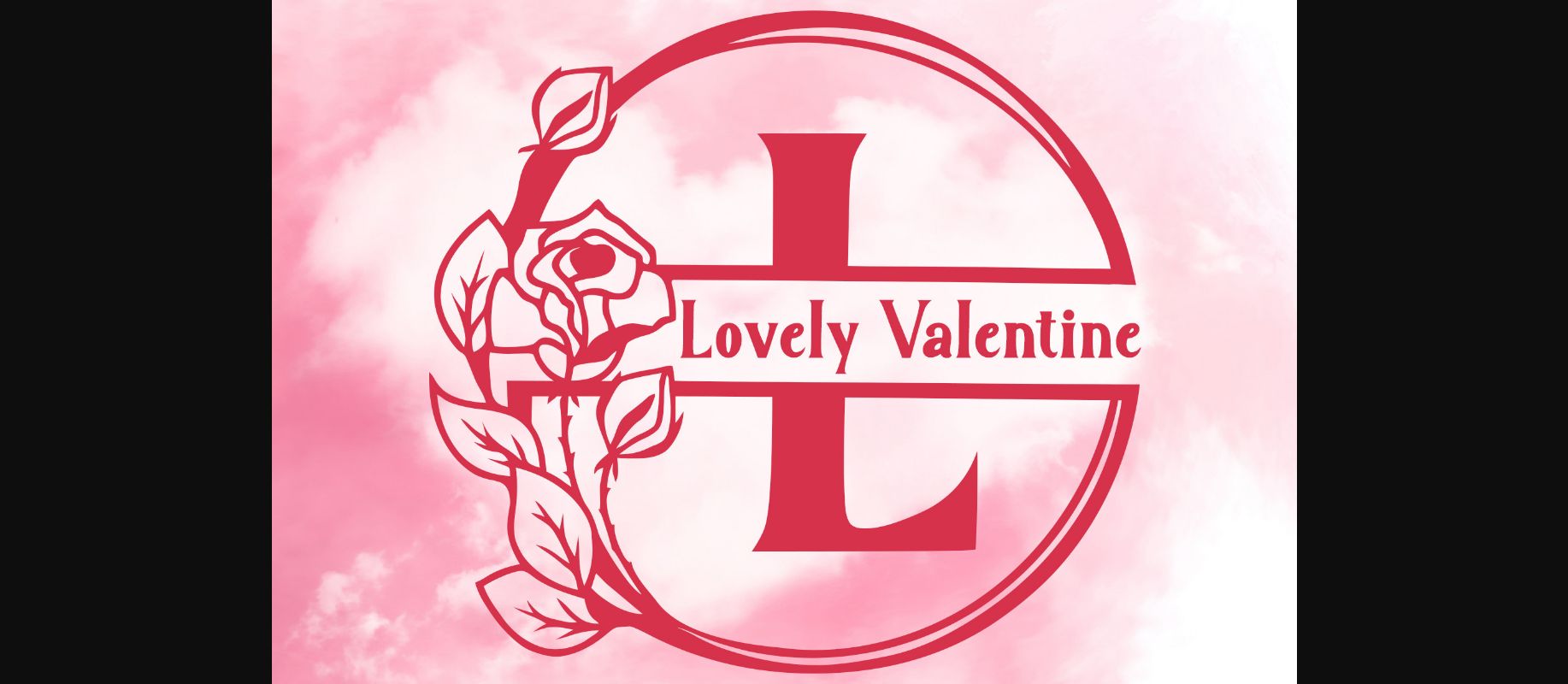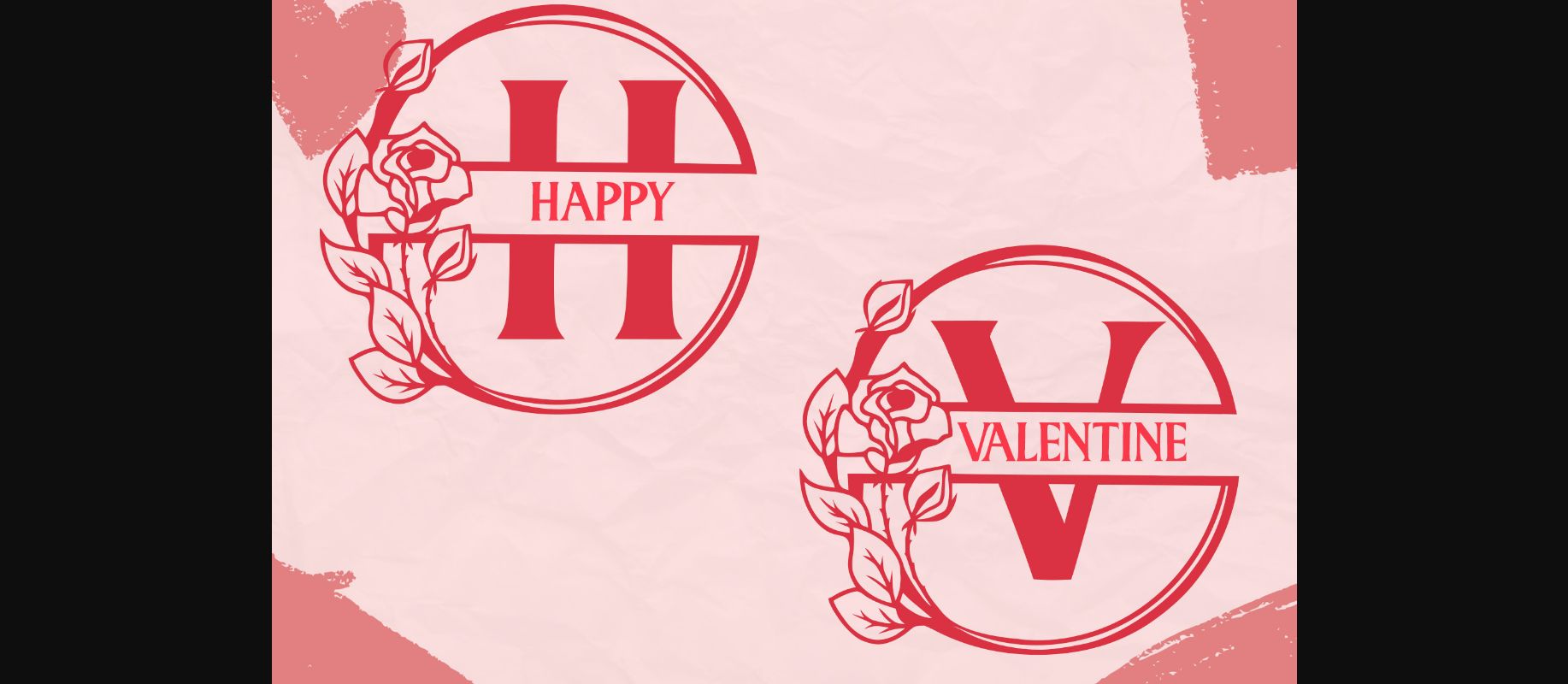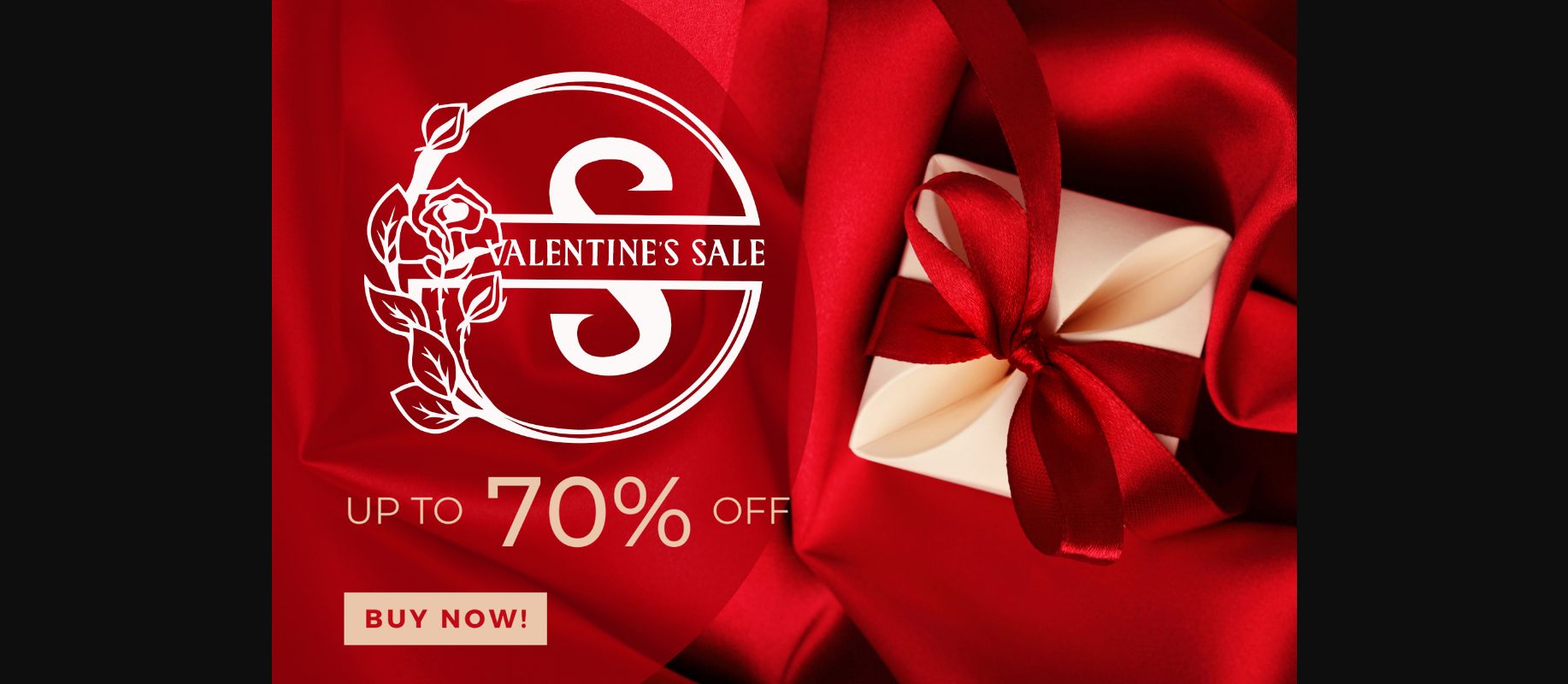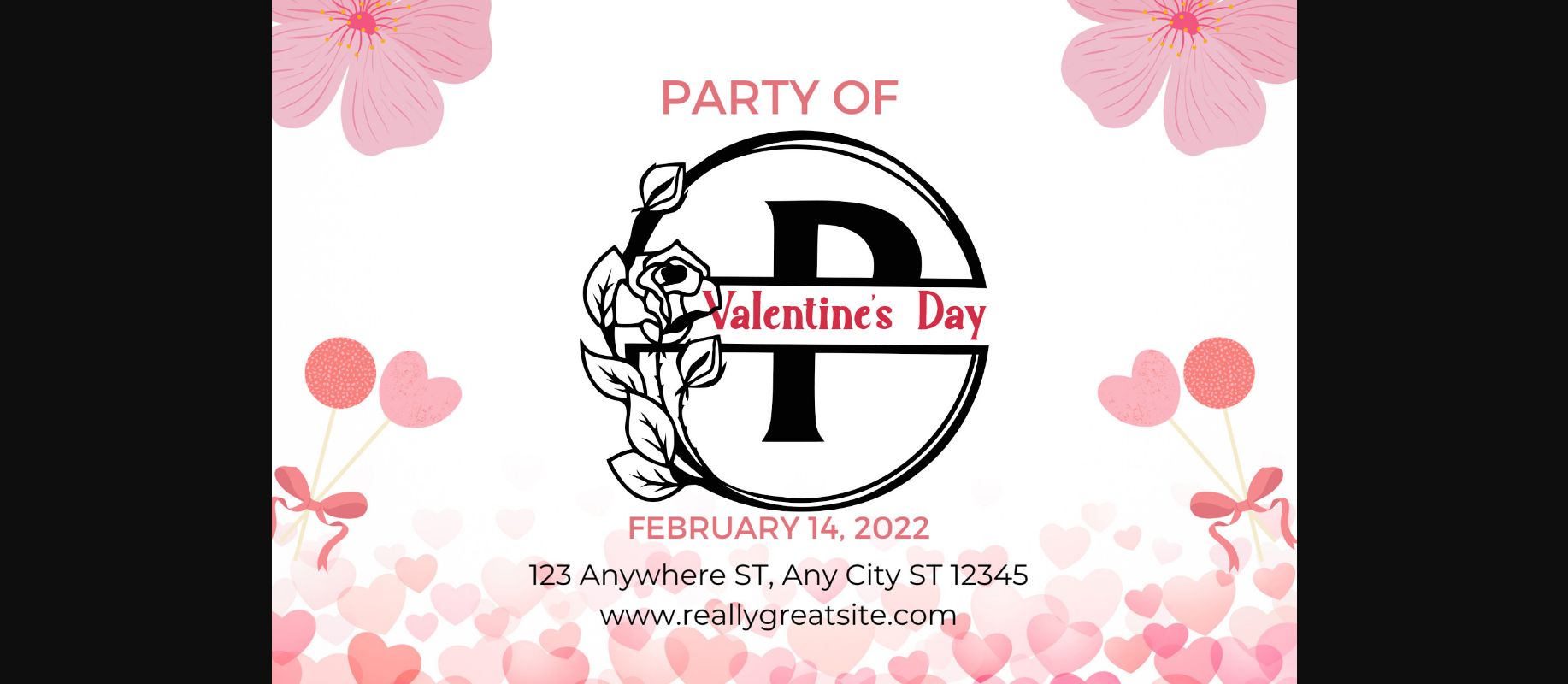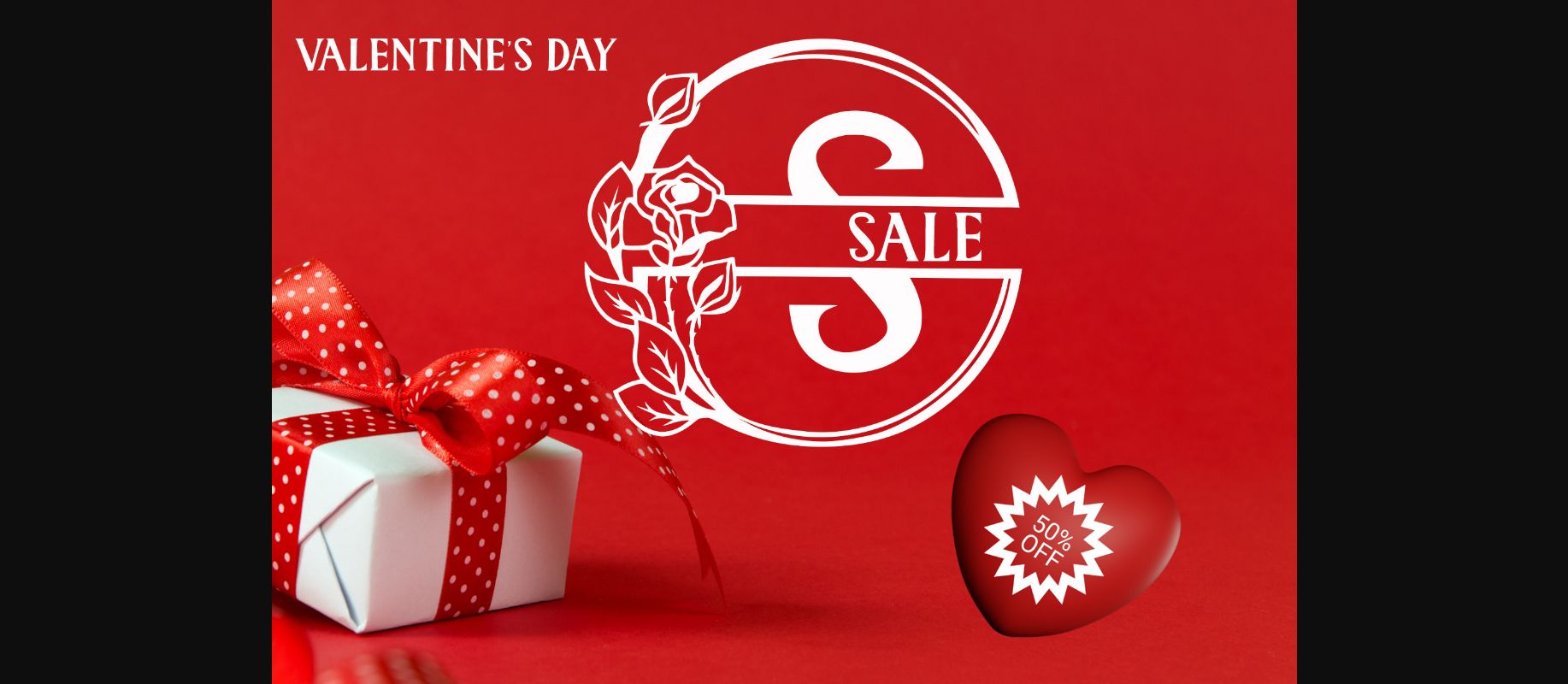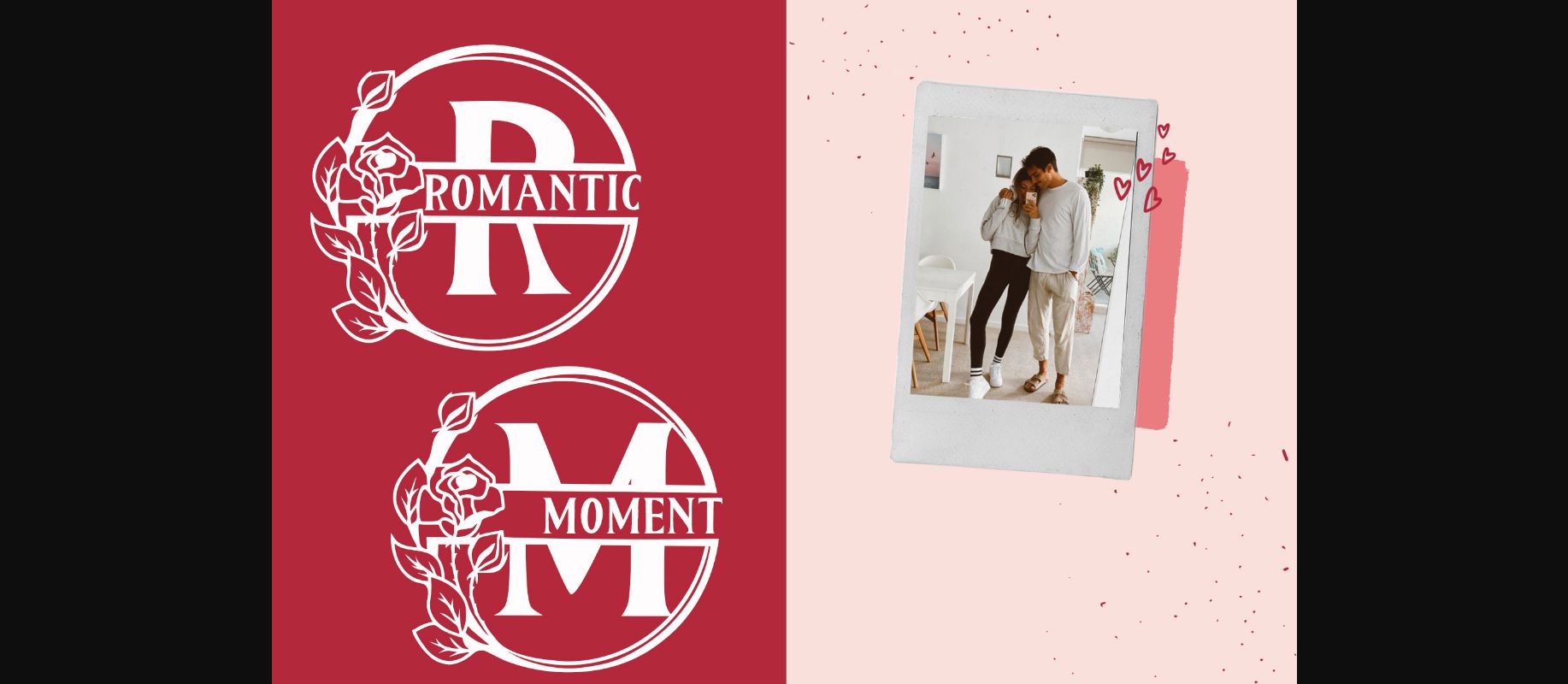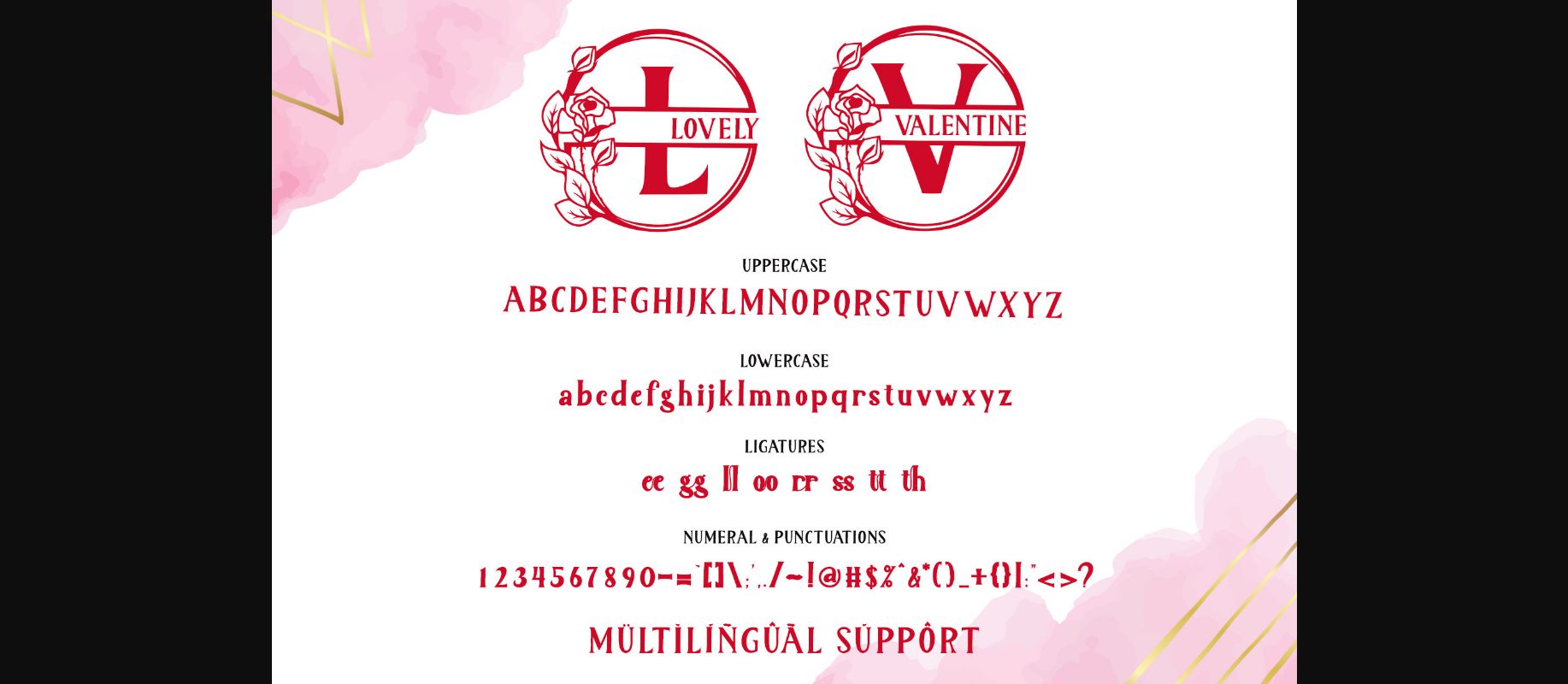
Lovely Valentine Monogram Font
About Lovely Valentine Monogram Font
Lovely Valentine Monogram is a beautiful and elegant duo font (serif and decorative). Whether you’re using it for crafts, digital design, presentations, or making greeting cards, this font has the potential to become your favorite go-to font, no matter the occasion!